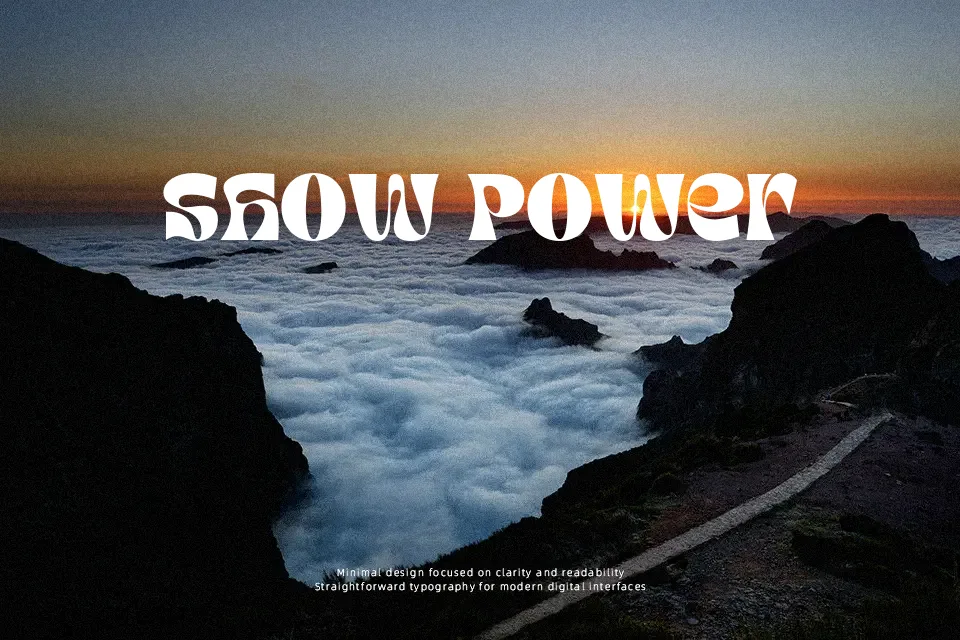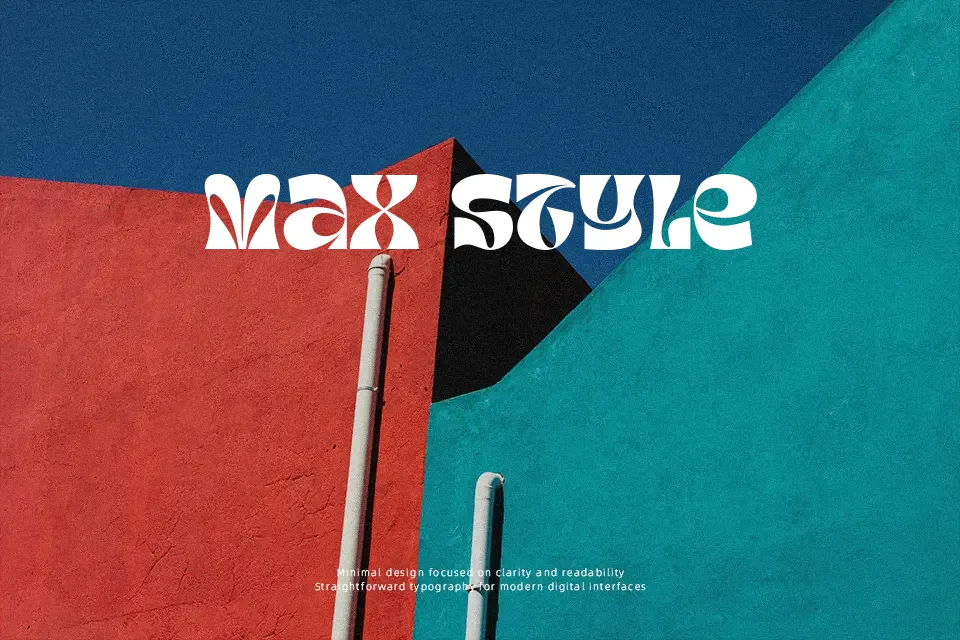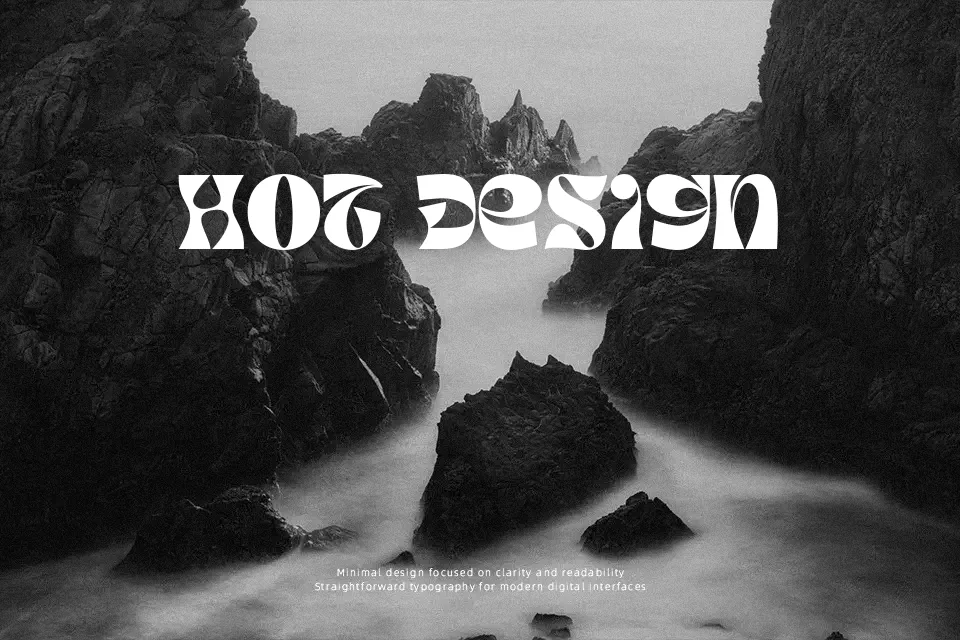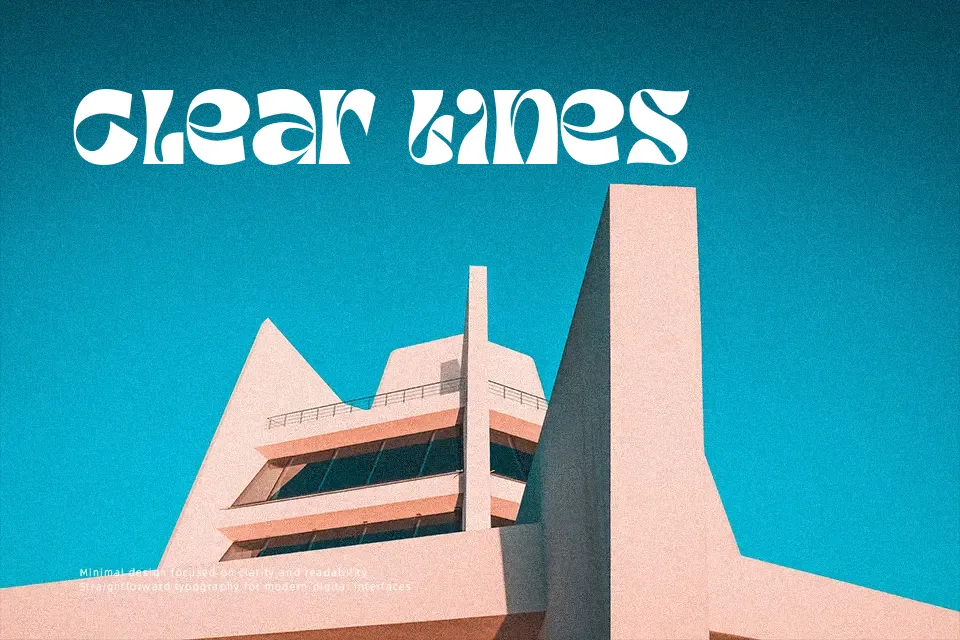
Tanamera Font
Tanamera Font exhibits fluid display anatomy marked by heavy, swelling stems, dramatic curvature, and tightly tracked proportions that create an organic visual rhythm. Each glyph pairs voluptuous outward flares with snug counterspaces, delivering immediate visual heft that thrives in headline compositions. The tight spacing helps maintain cohesion in large titling, yet the dense, swirling character forms quickly collapse and forfeit distinction when scaled down to smaller captions. Continuous body passages become strenuous to decipher due to the overwhelming stroke contrast and intricate contours. The typeface excels when given ample breathing room in short, prominent display treatments.
– psychedelic music festival posters
– vintage vinyl record packaging
– apparel graphic headlines
– retro craft beverage labels
– multi-line editorial body copy
– technical manual documentation
– mobile app interface labels
– compact legal fine print
Perfect for branding, headline, and music, with a artistic and decorative style.